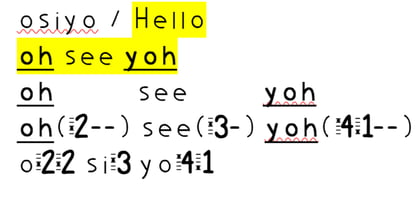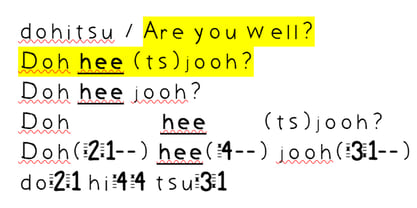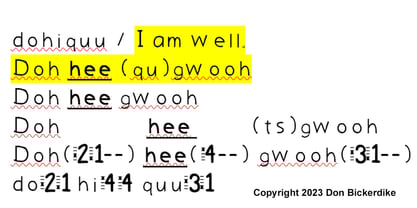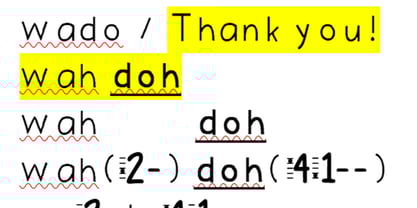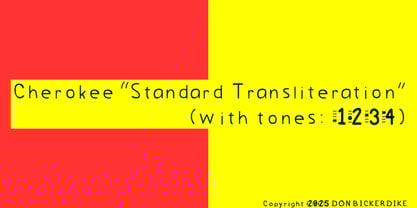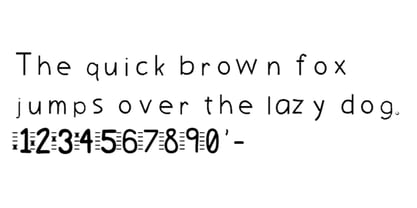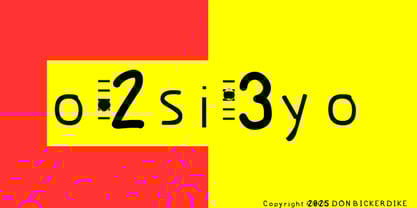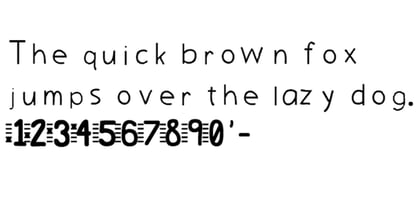
Cherokee Bickerdike 01
The Cherokee Bickerdike 01 Font Family was designed by Donald Bickerdike and published by Deep Perspective Books. Cherokee Bickerdike 01 contains 2 styles and family package options. More about this family
Introducing "Cherokee Bickerdike 01". This font is an innovative and revolutionary font design which has been used to empower learners and speakers of the Cherokee language, originally used along with other fonts created in 2023 by Don Bickerdike and also as a print form as applied to the Bickerdike Extended Transliteration (B.E.T.) method. Each character has previously been used around the perimeter of the Clockface template and the Shorthand Clockface Template (as a phonetic guide surrounding the outer rim of each Clockface) to help the reader identify the correct phonetic sounds associated with each syllabary character by showing the basic phonetic sounds. This font can be used in conjunction with the Bickerdike Extended Transliteration (B.E.T.) method (a custom phonetic system engineered for precision and consistency) when typing in either a transliterated form or a phonetic form. Unique Features for Enhanced Learning To accommodate the Tone/Duration part of the B.E.T. method, this font also includes uniquely designed numerals and hyphen, crafted to visually represent the phonetic tones and syllable durations of the Cherokee language, much like notes on a music score. (In this font, the hyphen key remains as the hyphen key, and therefore there is no need to modify the double-quotation mark within this font.) Numbers 1, 2, 3, and 4 are each uniquely styled to represent their respective tone levels. (Numbers 5, 6, 7, 8, 9, and 0 have a similar design without the additional dot showing any tone level.) The number "4" is represented by a grave accent character (  ̀ ), providing a comprehensive and intuitive system for understanding and reproducing the phonetic tones of the language. For added clarity when using the B.E.T. method, the hyphen (-) is used to show vowel duration. This unique feature helps users visually distinguish between single-keystroke syllables (-) in representing the shorter duration of a vowel and double-keystroke syllables (--) in representing the longer duration of a vowel. All elements included in this font (the phonetic system, the unique number designs, and the custom punctuation usage) were created and copyrighted in 2023. These designs are featured in the original published eBook on the Cherokee language, Revolutionary Cherokee: What You See Is What You Say by font creator Don Bickerdike (Copyright 2023 Don Bickerdike.)